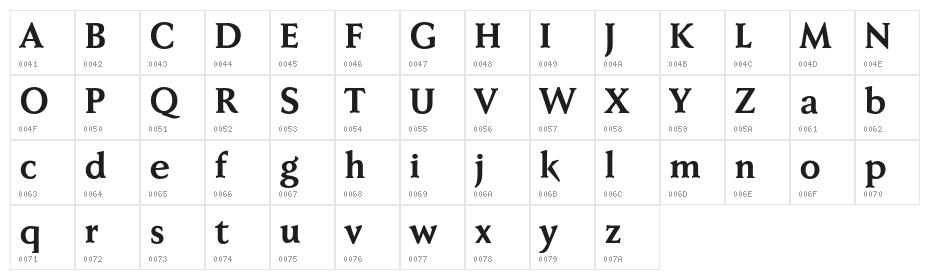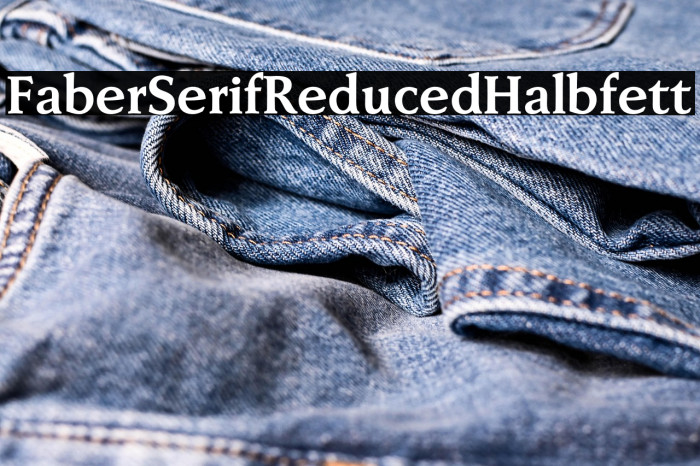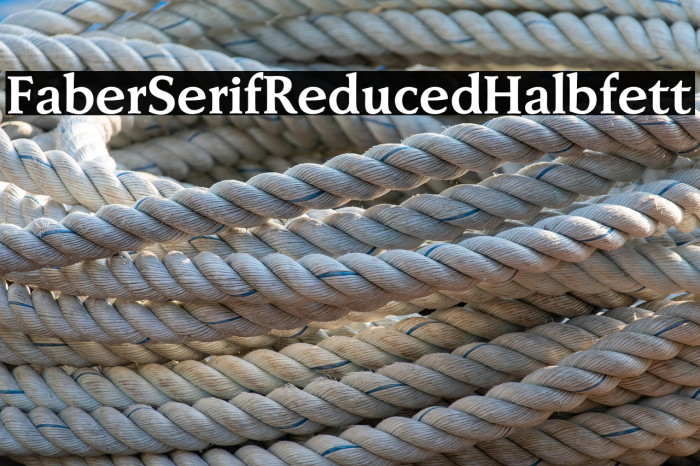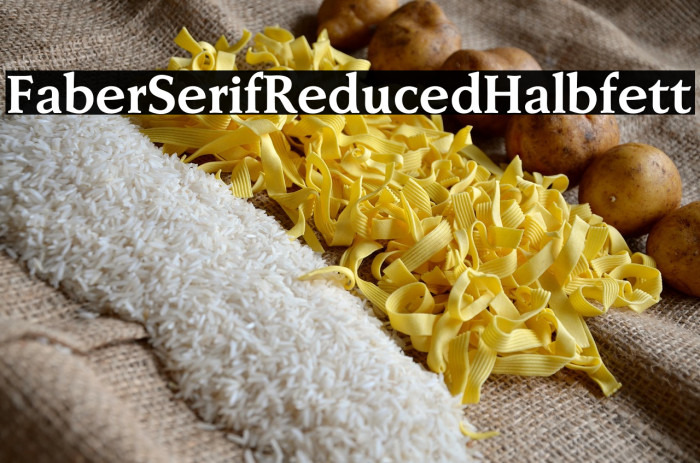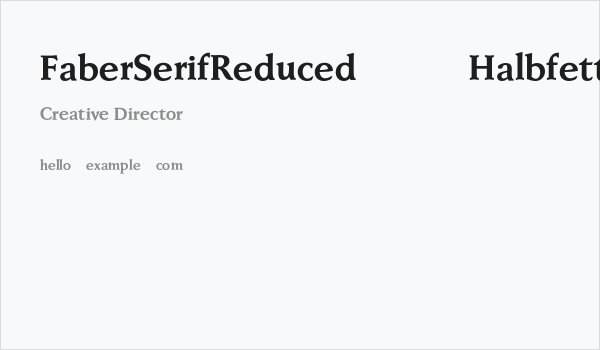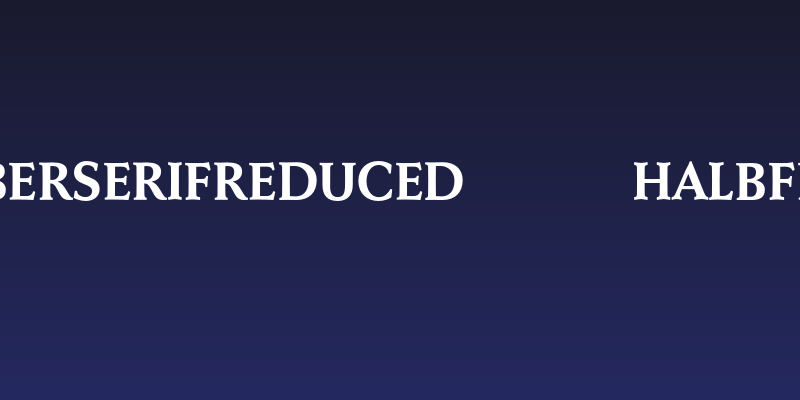
FaberSerifReduced-75Halbfett Font
FaberSerifReduced-75Halbfett Description
This font exhibits a classic serif style with a strong presence, characterized by its bold and authoritative strokes. The serifs are pronounced and slightly curved, adding a touch of elegance and tradition. The uppercase letters are robust, with a consistent height and width, while the lowercase letters maintain a harmonious balance with slightly rounded edges. The numerals are clear and legible, matching the overall boldness of the font. Special characters are designed with the same attention to detail, ensuring uniformity across all glyphs. This font is well-suited for projects that require a formal and impactful appearance.
| Use Case | Headlines, Logos, Editorial Design |
| Proposed Projects | Ideal for book covers, formal invitations, branding, and editorial design. |